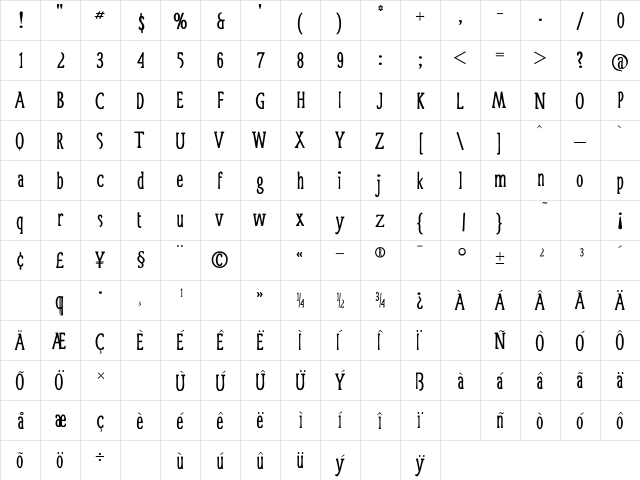
Cuty Roman Font Preview
Cuty Roman
Design Context for Cuty Typeface
Cuty offers clean, dependable letterforms without strong stylistic allegiance, making it a practical choice for designers who need flexibility.